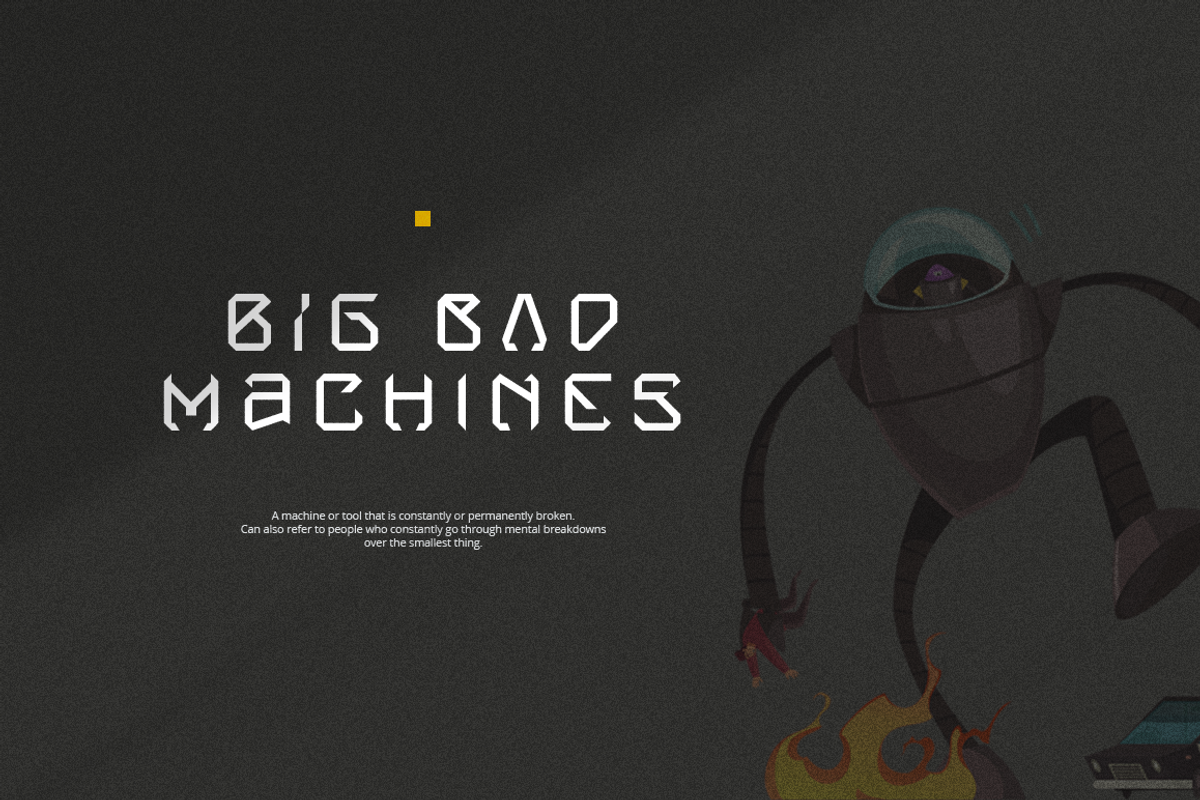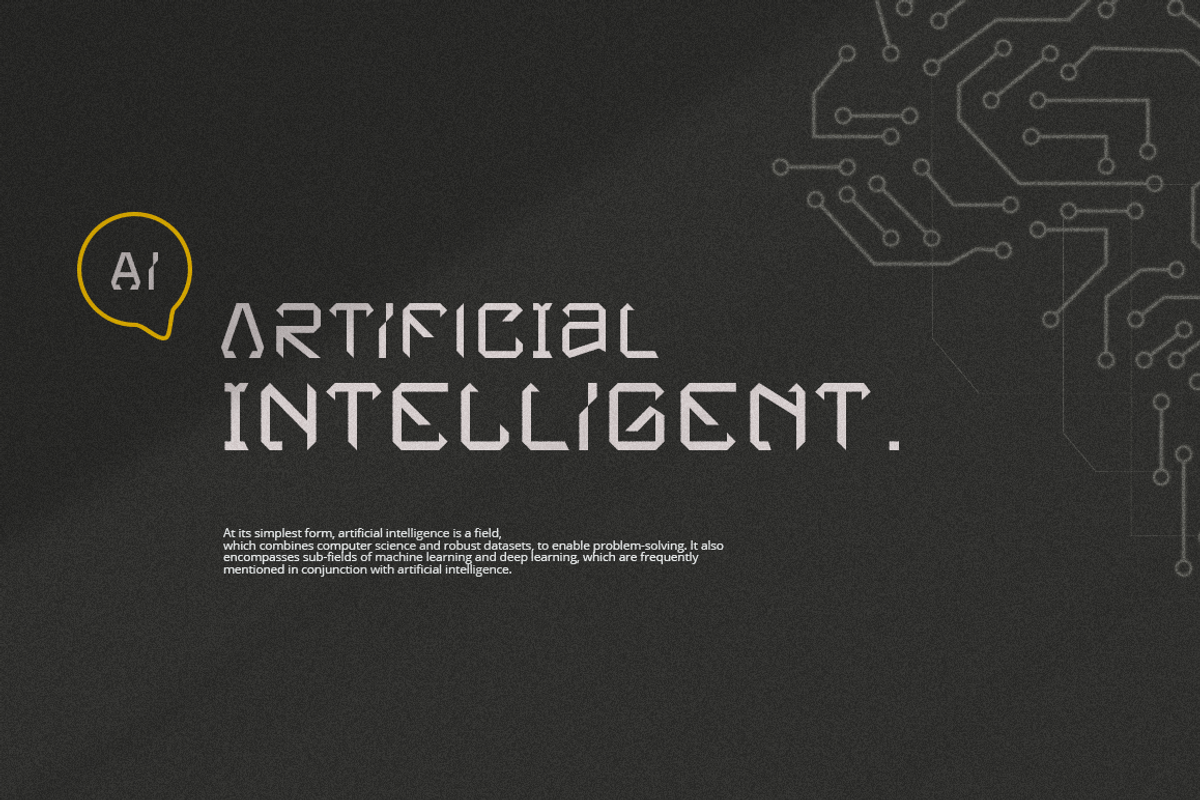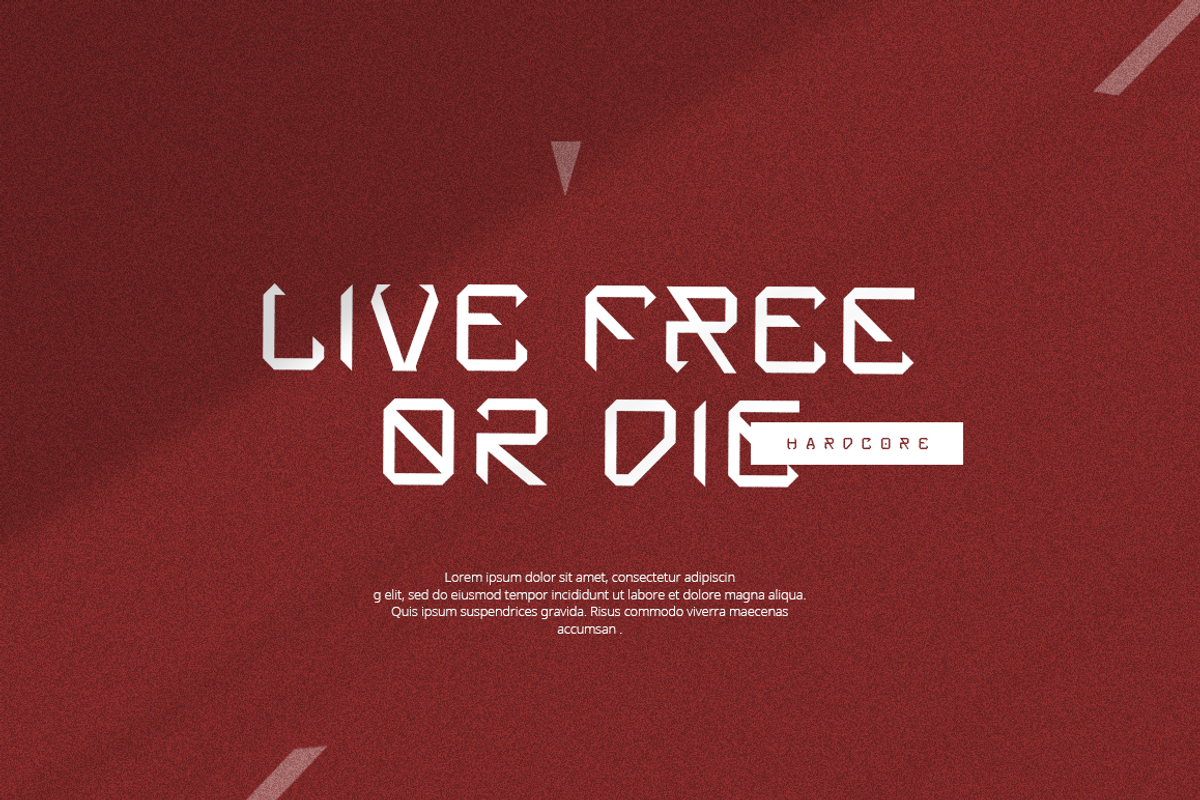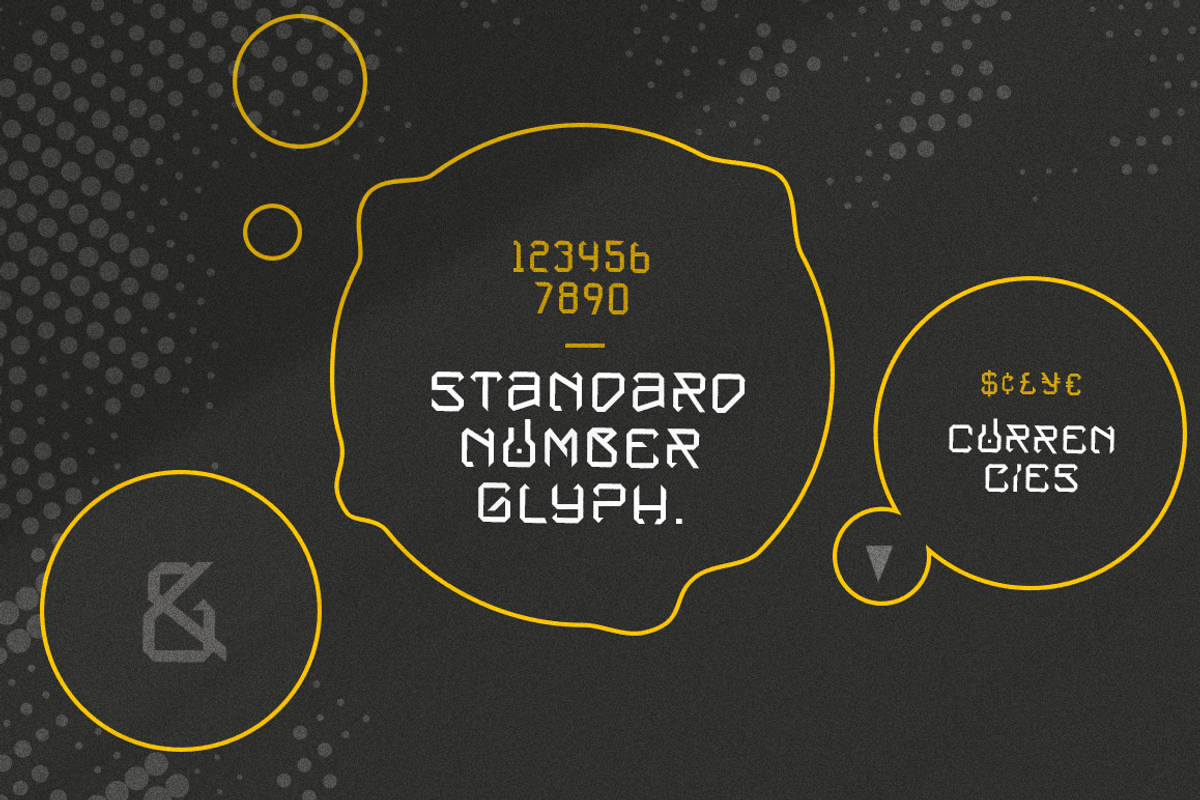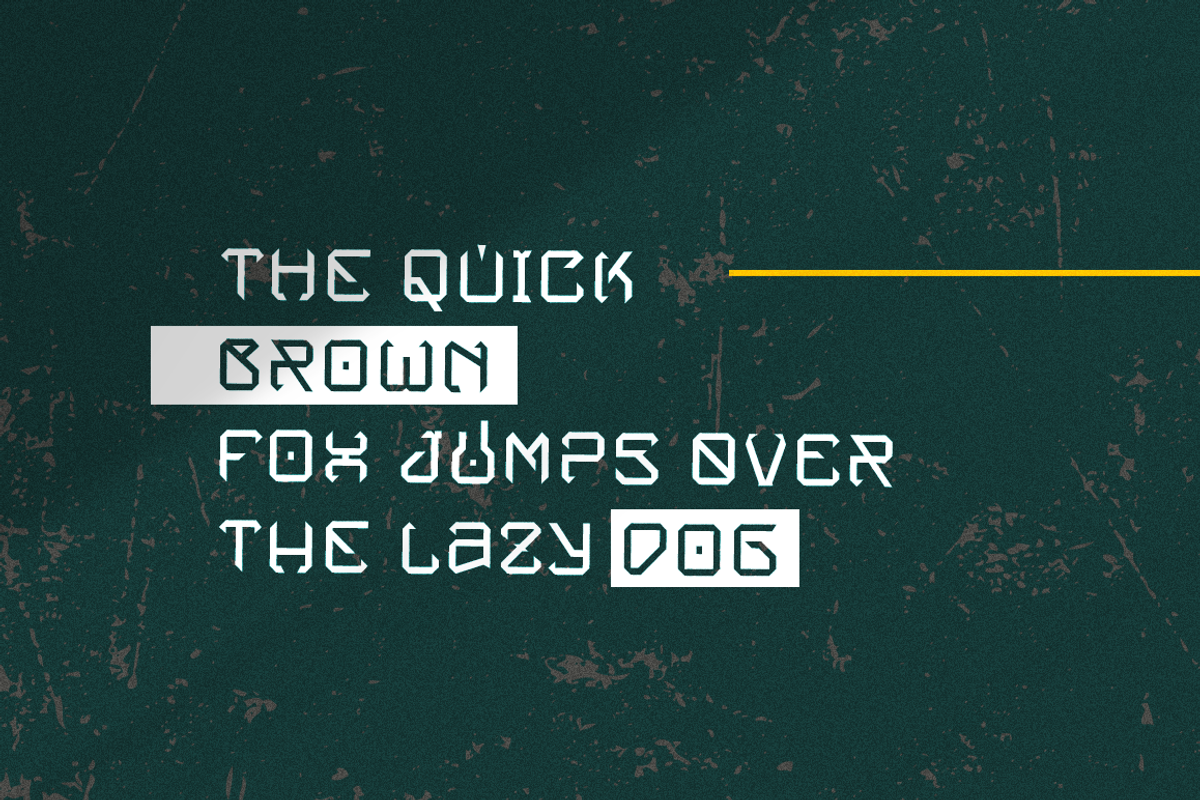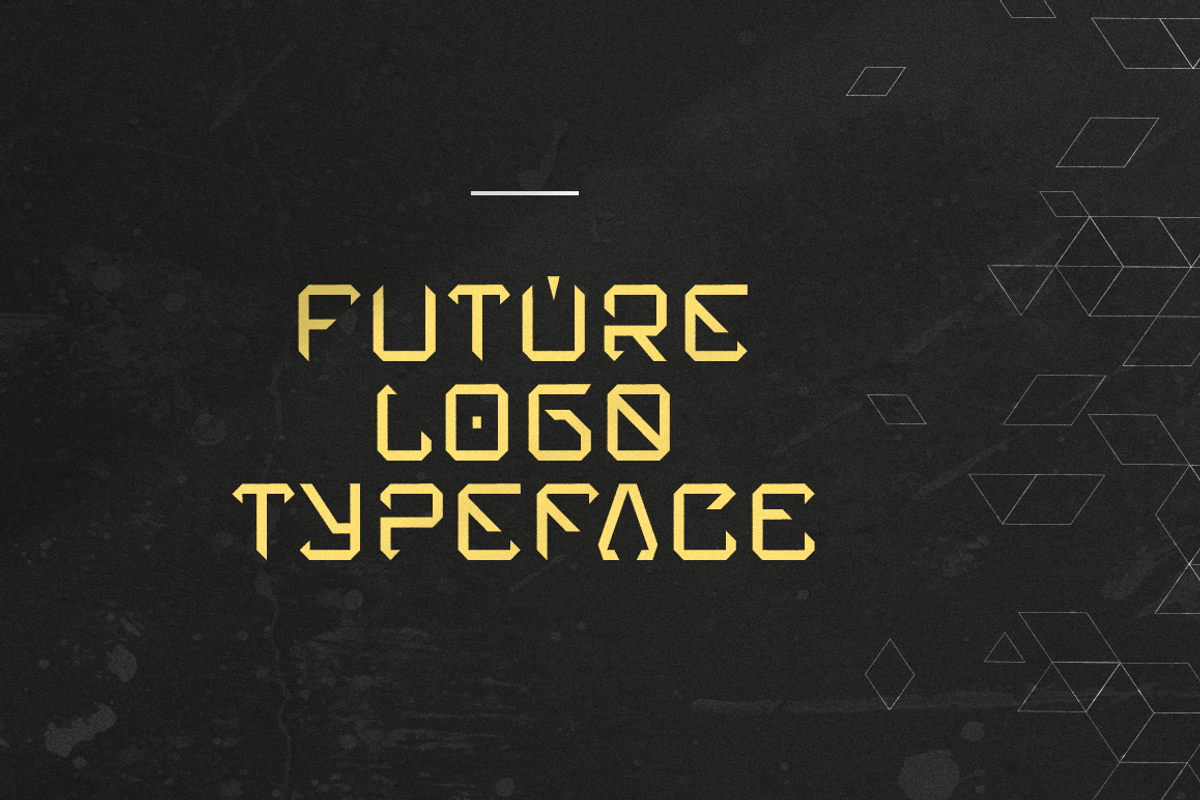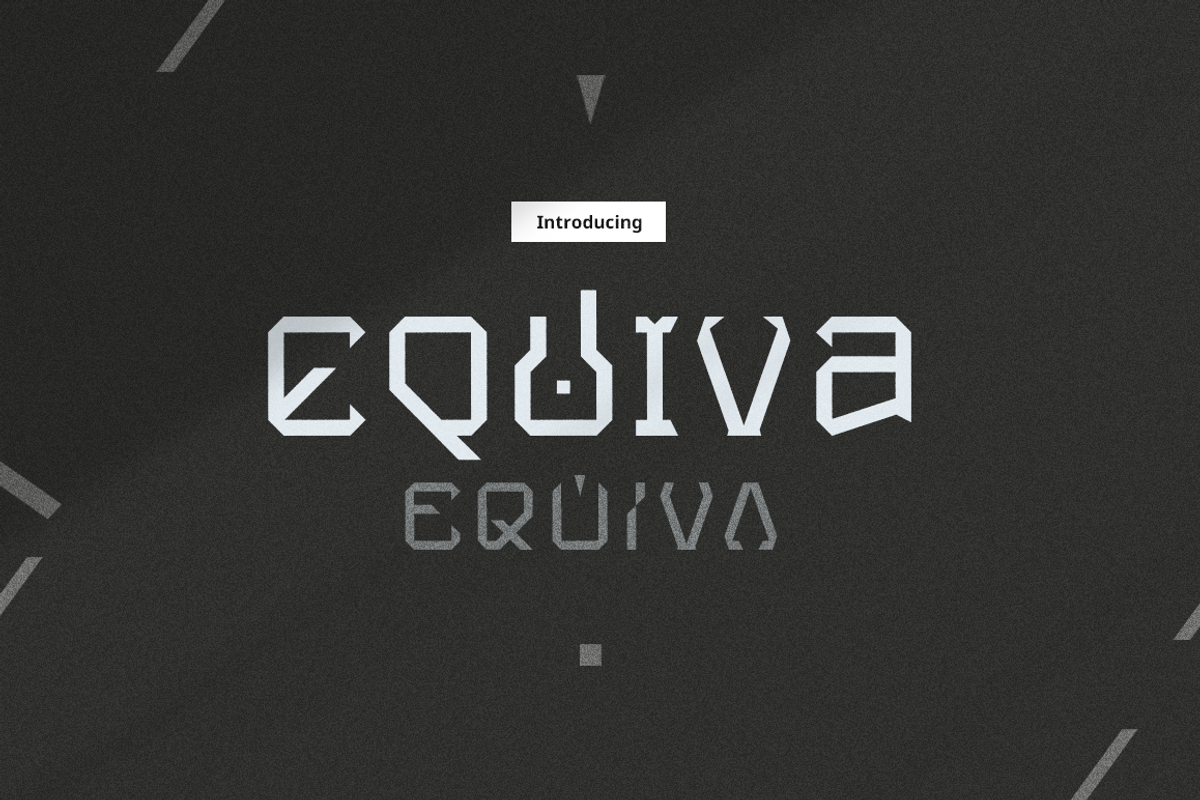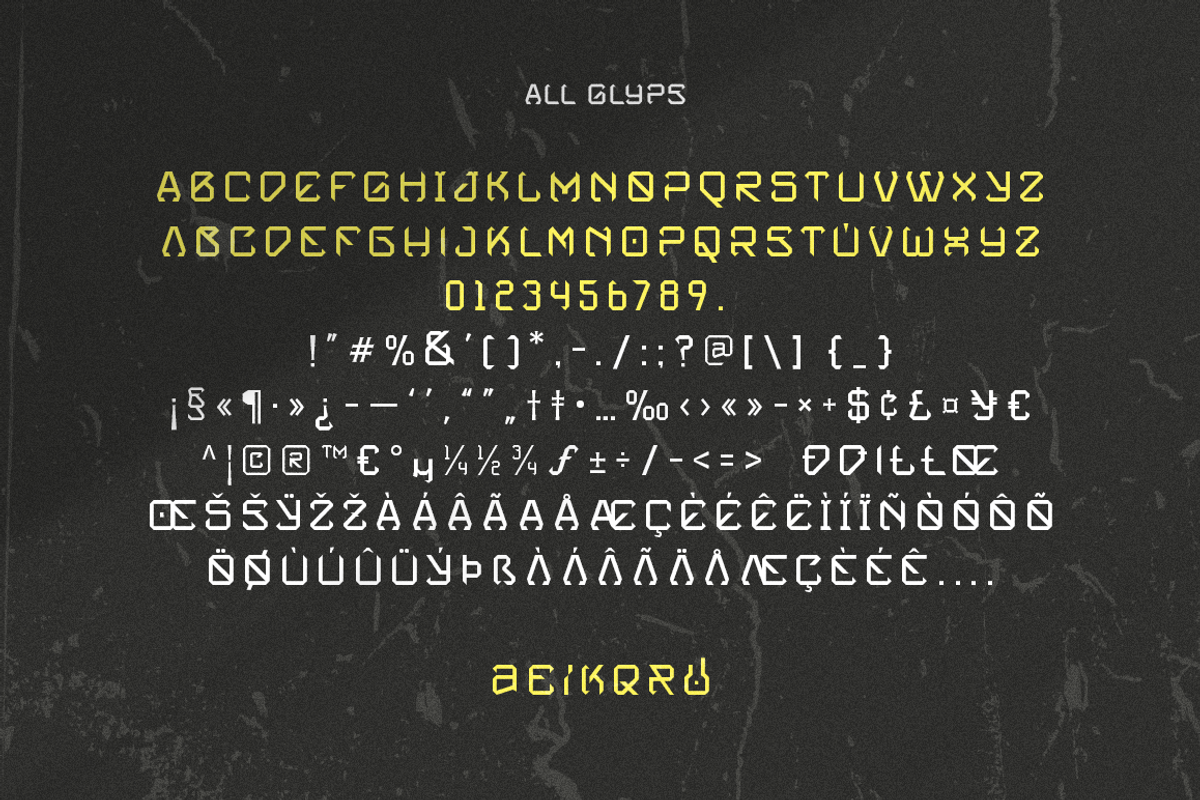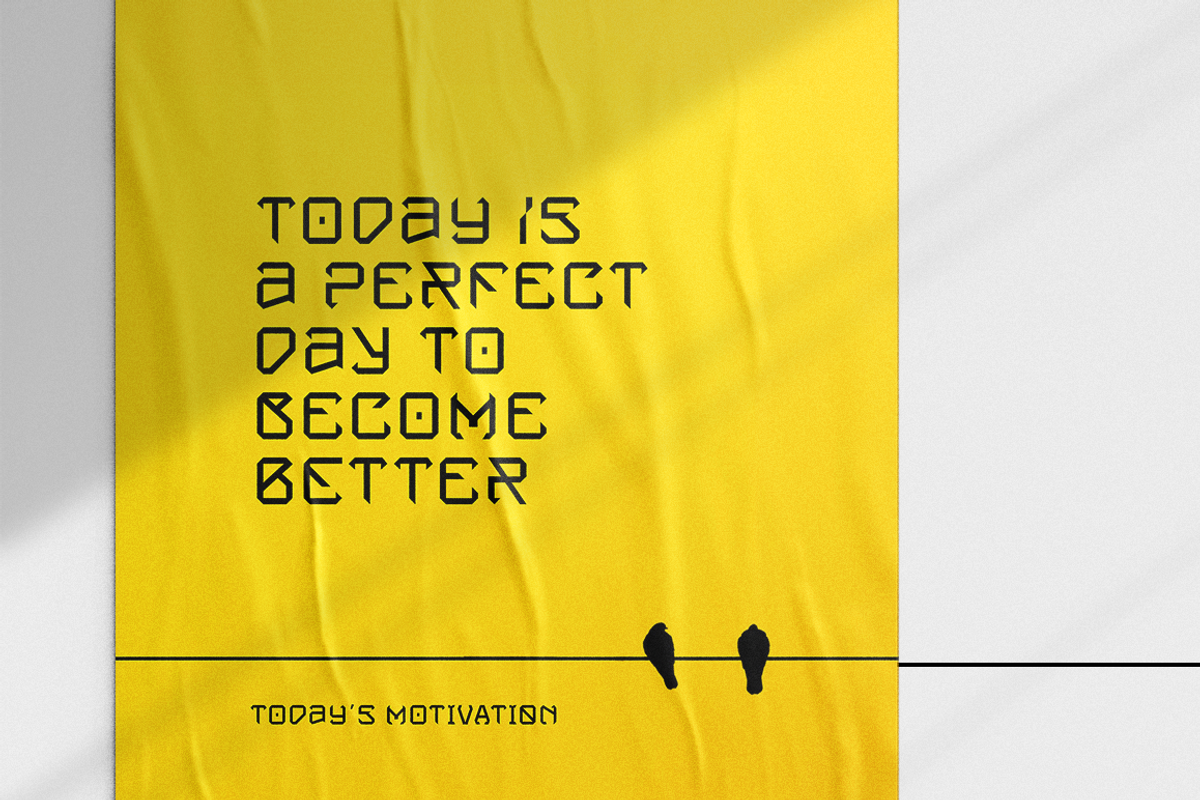
Equiva - Futuristic Typeface
Embrace the future of typography with Equiva, a cutting-edge font that exudes modernity and sophistication. Crafted with precision, Equiva's sleek design features razor-sharp edges that convey a sense of innovation and forward-thinking. Each letter is meticulously crafted to embody a futuristic aesthetic, making it ideal for projects that demand a contemporary vibe.
Equiva's bold yet elegant presence on the page commands attention, making it perfect for headlines, logos, and branding materials that seek to stand out in a crowded digital landscape. Its clean lines and geometric forms lend it a sense of order and clarity, while its sharp edges add an element of intrigue and edginess.
Whether you're designing for technology, science fiction, or avant-garde themes, Equiva offers versatility and style that will elevate your creative endeavors to new heights. Step into the future of design with Equiva and let its dynamic energy propel your projects into the next dimension.
- Futuristic look
- Basic Latin Glyphs
- Uppercase and Lowercase Letters
- Alternates glyphs